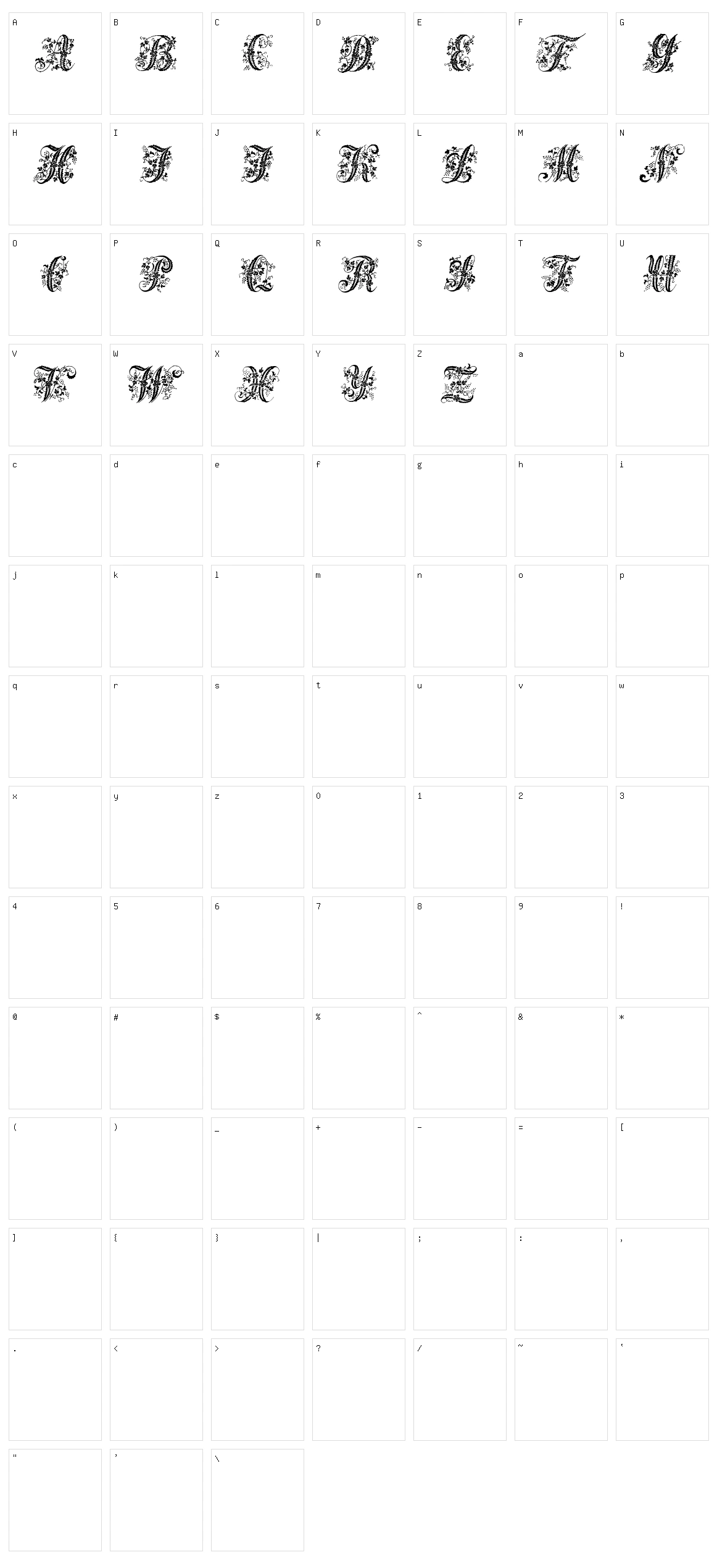
The free font Victorian Initials One is carefully designed by Dieter Steffmann, showcasing a thoughtful balance of creativity and usability and falls under the Initials font style. When you download the ZIP file, it contains only 147.5 KB of font files, making it lightweight and quick to download. Please review the license details below to understand permitted usage and distribution rights. If license information is not available, we recommend using this font for personal projects only or contacting the author directly for commercial usage permissions.